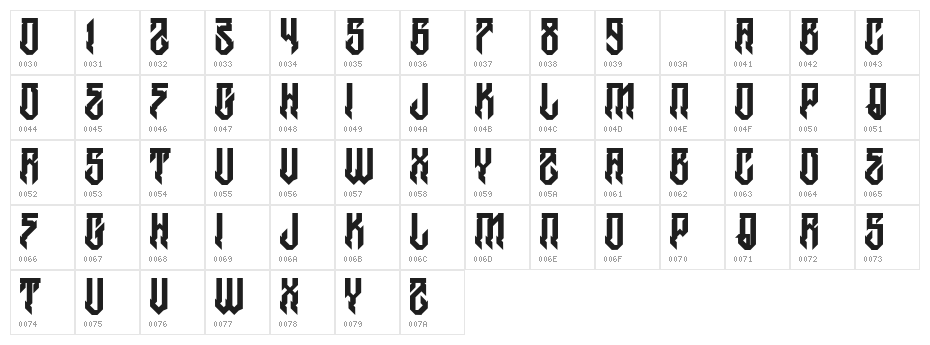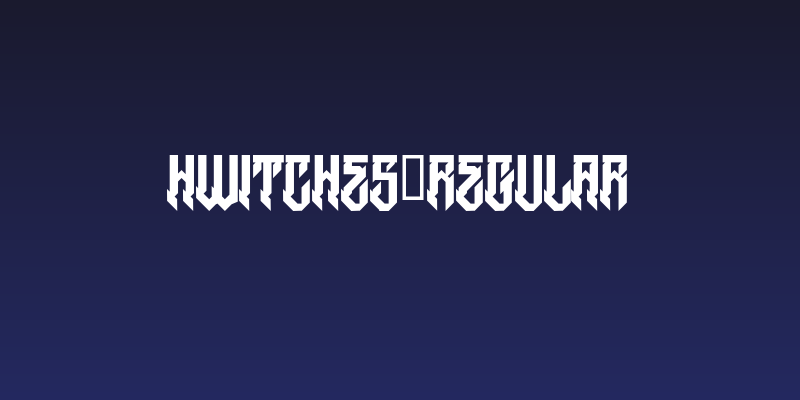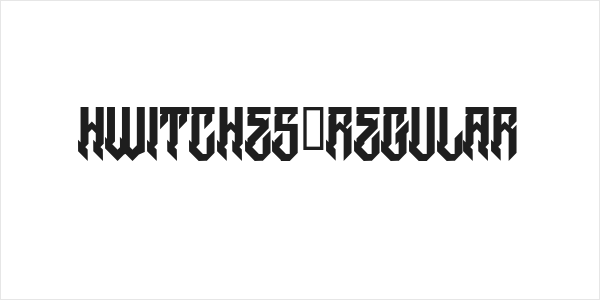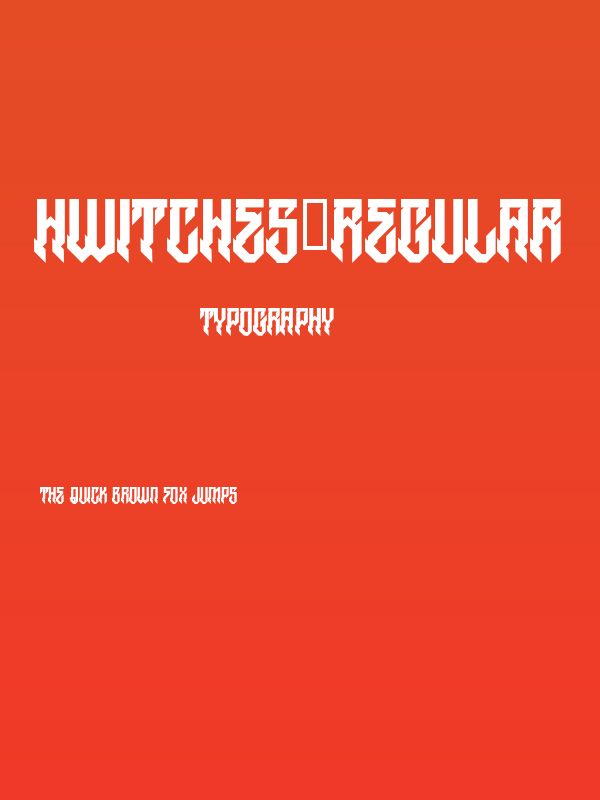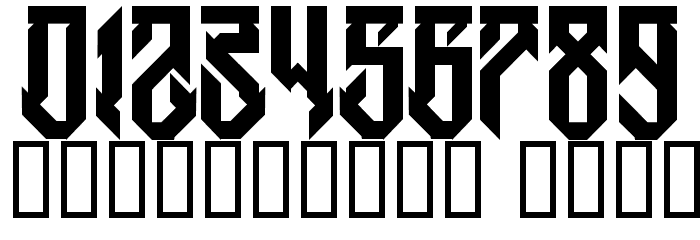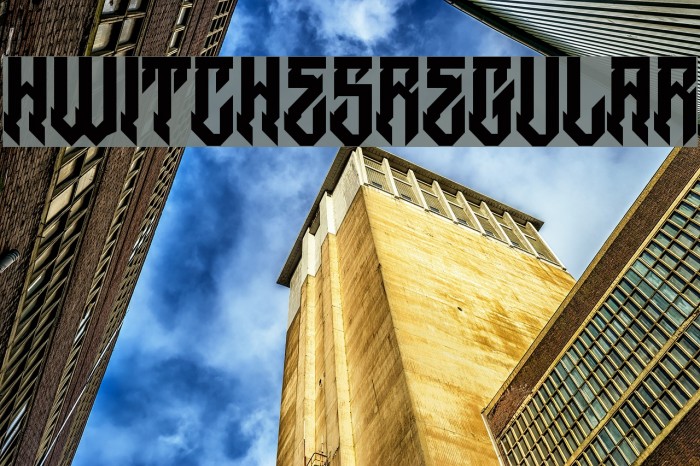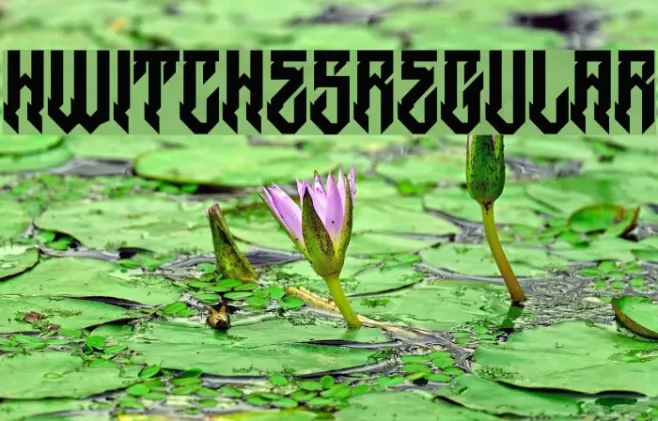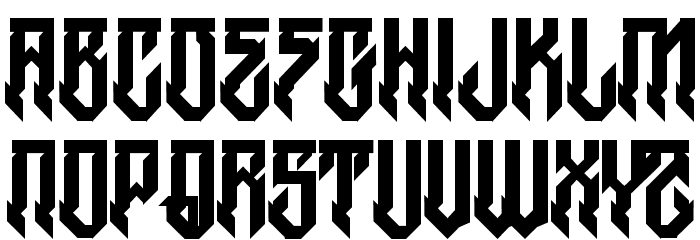
HWitches-Regular Font
HWitches-Regular Description
This font features a bold and striking design with sharp, angular edges and a distinct geometric style. The characters are heavily stylized, giving off a gothic and modern vibe, making it stand out in any design. The uppercase and lowercase letters maintain a consistent height, contributing to a uniform appearance. The numbers and special characters follow the same design principles, ensuring a cohesive look across all elements. This font is perfect for projects that require a strong visual impact, such as posters, album covers, or branding materials.
| Overall Style | Modern, Gothic |
| Proposed Projects | Ideal for posters, album covers, branding, and any project needing a strong visual impact. |